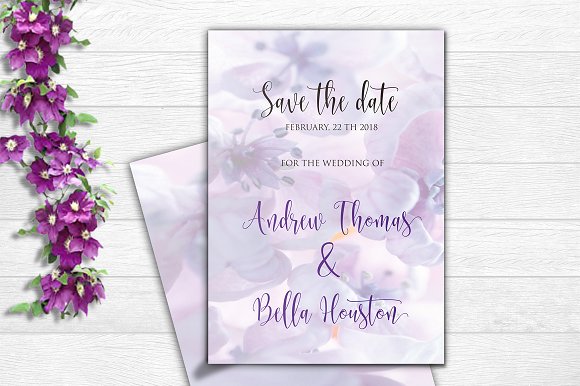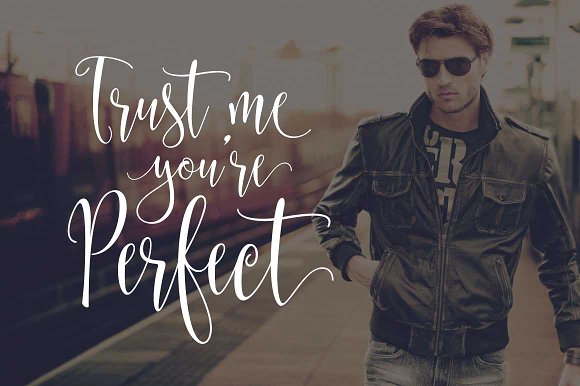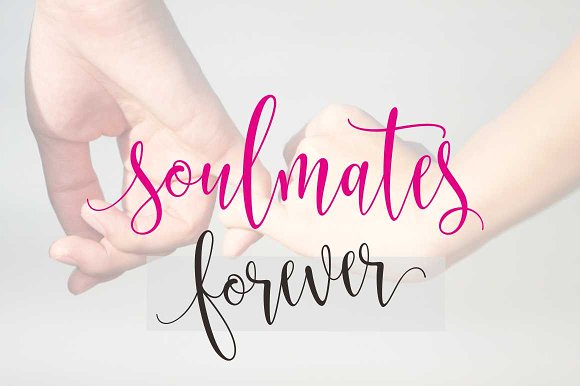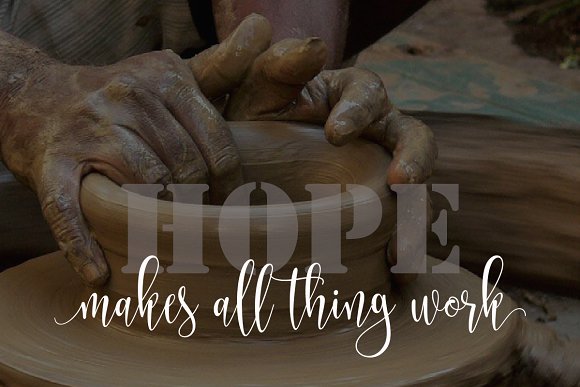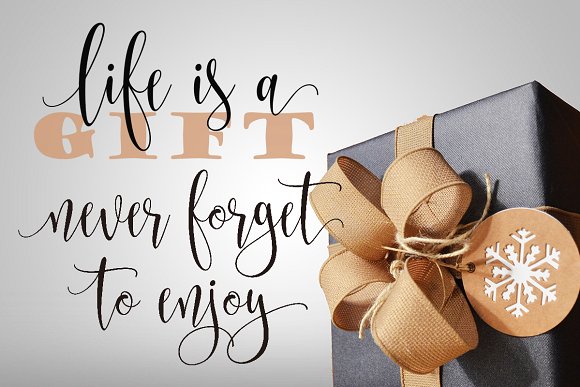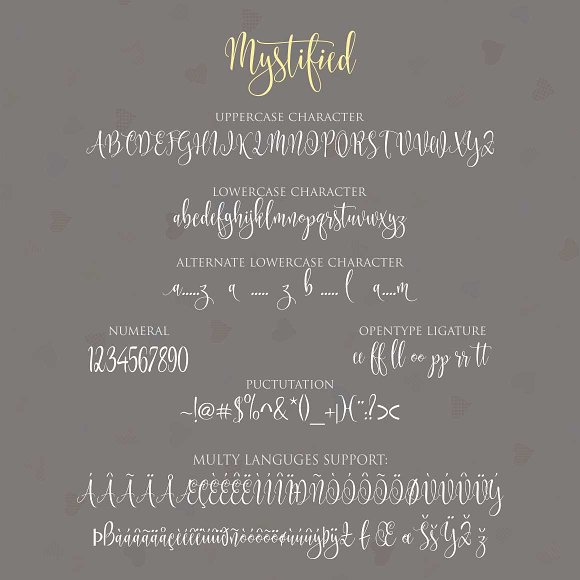
Introduction to Mystified Font
Mystified is an interconnected font.
It features stunning letters that weld together perfectly .
Key Features of Mystified Font